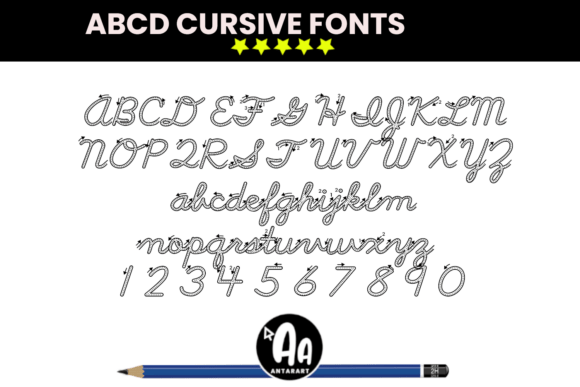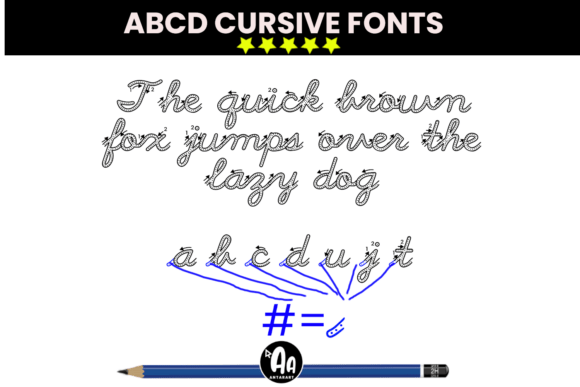
Introducing the Abcd Cursive Outlined Dotted Arrows Font: A Game-Changer for Handwriting Education
Are you a teacher, homeschooler, or designer looking for a fun and interactive way to teach cursive handwriting? Look no further! The Abcd Cursive Outlined Dotted Arrows Font is a versatile and engaging tool that helps students learn and master cursive handwriting skills. Inspired by the D’Nealian handwriting method, this installable handwritten font is perfect for creating thousands of worksheets using any software.
What is the Abcd Cursive Outlined Dotted Arrows Font?
The Abcd Cursive Outlined Dotted Arrows Font is a unique and comprehensive font that includes both uppercase and lowercase letters, as well as numbers 0-9, in two styles: outlined and dotted arrows, and cursive. This font is designed to help students build strong handwriting skills by mastering cursive handwriting through fun tracing exercises. The font’s versatility allows users to create a wide range of worksheets, from simple alphabet tracing to more complex handwriting exercises.
Key Features of the Abcd Cursive Outlined Dotted Arrows Font
- Inspired by the D’Nealian handwriting method: This font is based on a well-established and widely used handwriting method that emphasizes proper letter formation and handwriting techniques.
- Comprehensive character set: The font includes both uppercase and lowercase letters, as well as numbers 0-9, in two styles: outlined and dotted arrows, and cursive.
- Supports teachers and homeschoolers: This font is designed to support educators in creating engaging and interactive handwriting exercises for their students.
The Abcd Cursive Outlined Dotted Arrows Font is not only a valuable tool for educators but also for designers and crafters who create educational materials. With this font, designers can create:
- Custom worksheets: Create tailored worksheets for students with specific handwriting needs or learning styles.
- Interactive handwriting exercises: Design engaging and interactive handwriting exercises that make learning fun and enjoyable.
- Printable educational materials: Create a wide range of printable educational materials, from alphabet charts to handwriting workbooks.
| Font Name | Abcd Cursive Outlined Dotted Arrows Font |
| Author | AntarArt |
The Abcd Cursive Outlined Dotted Arrows Font is a valuable resource for educators, designers, and crafters who want to create engaging and interactive handwriting exercises. With its comprehensive character set, ease of use, and versatility, this font is sure to become a must-have tool for anyone involved in handwriting education. Whether you’re a teacher, homeschooler, or designer, this font will help you create thousands of worksheets that make learning cursive handwriting fun and enjoyable.